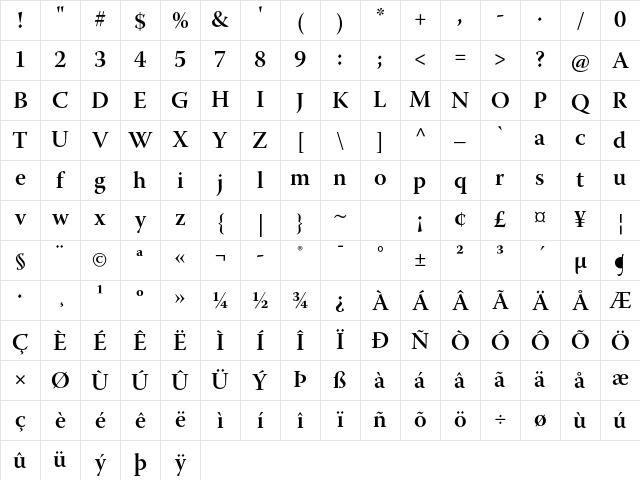
Complete Warnock Pro Semibold Subhead glyph index. Displaying only characters natively supported by Warnock Pro Semibold Subhead font.
Warnock Pro is a composed and adaptable typeface that performs quietly and consistently across a wide range of design contexts. Its bold stroke weight gives it real presence on the page.